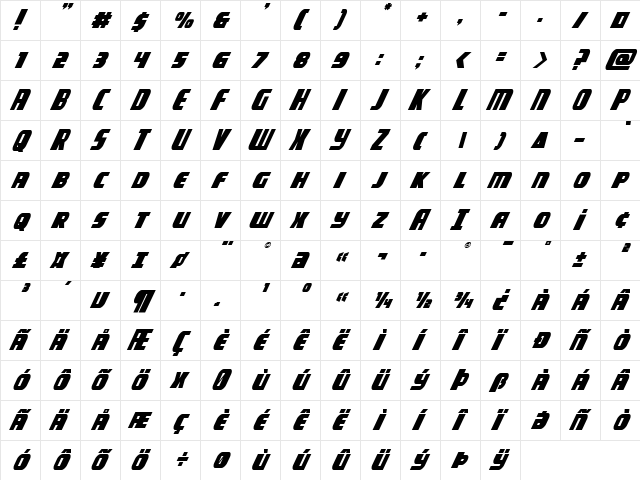
Camp Justice Super-Italic Italic
Design Context for Camp Justice Super-Italic Typeface
Camp Justice Super-Italic is a composed and adaptable typeface that performs quietly and consistently across a wide range of design contexts. The dynamic lean of this cut emphasises speed and emphasis in any layout.
Pro Tip: Use Camp Justice Super-Italic for emphasis, pull quotes, and subheadings where its slanted energy can add rhythm to the layout.